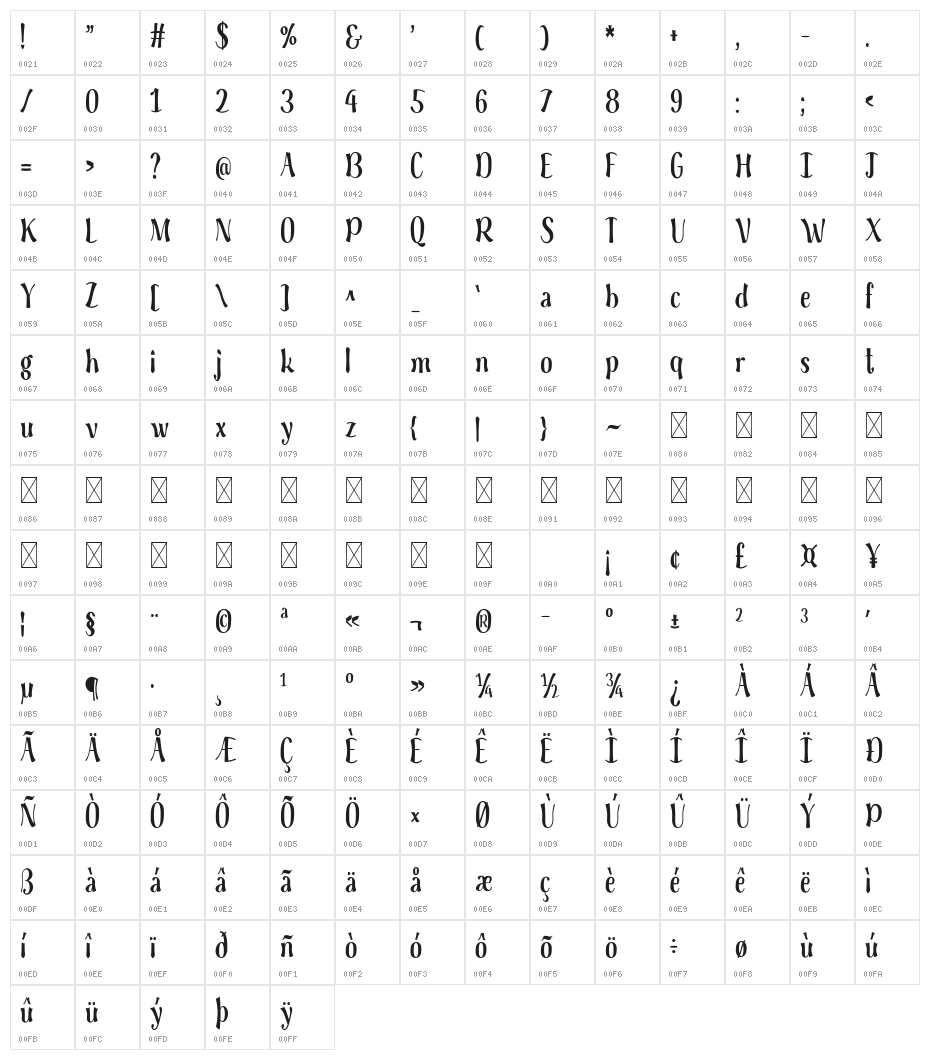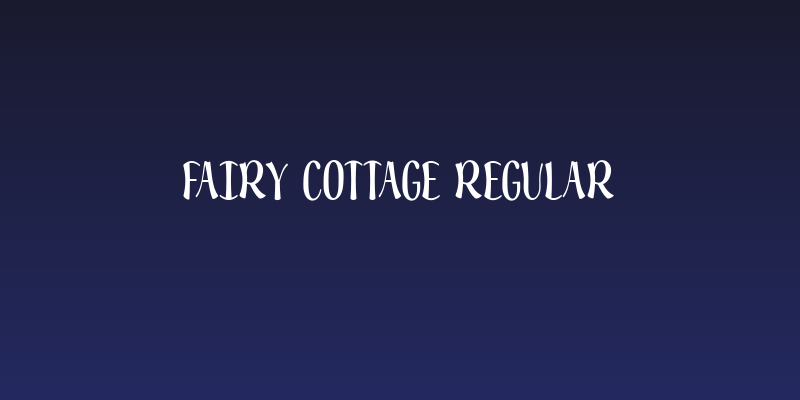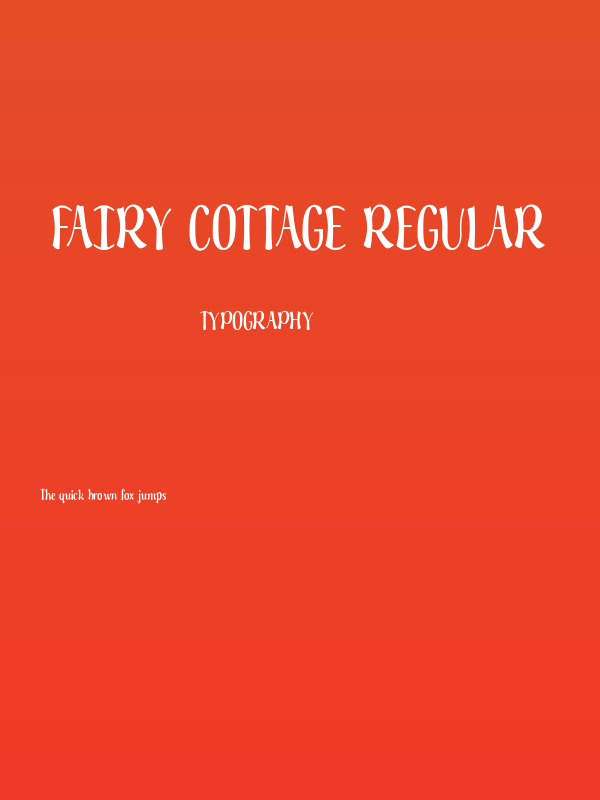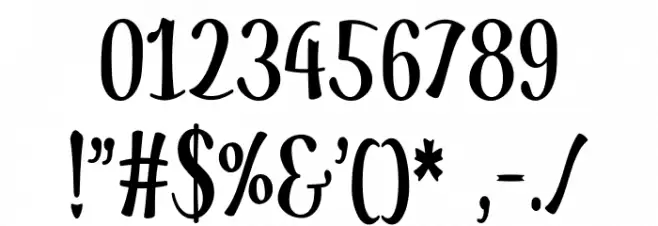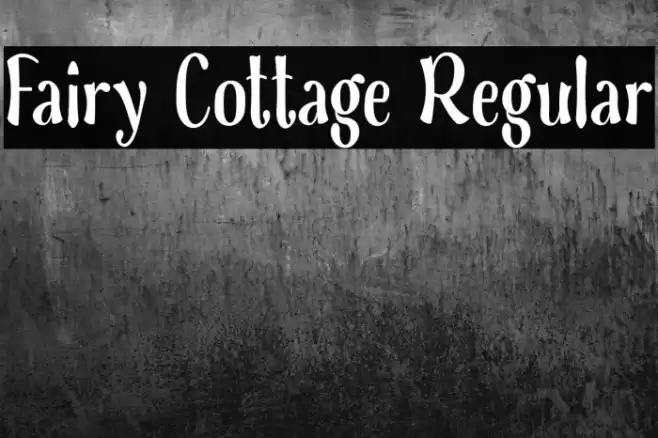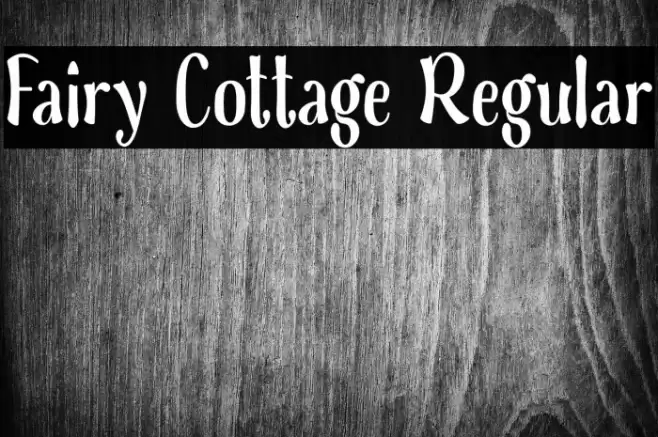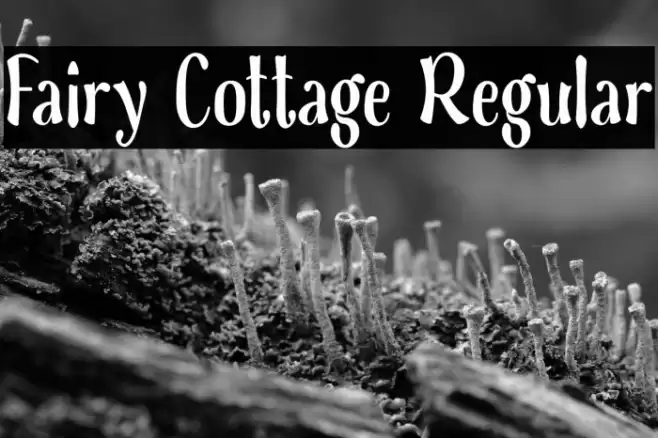
Fairy Cottage Regular Font
Fairy Cottage Regular Description
This font features a whimsical and playful design, characterized by its flowing curves and slightly irregular shapes. The uppercase letters have a distinctive flair, with exaggerated serifs and varying stroke widths that add a sense of movement and fantasy. The lowercase letters maintain a consistent style, with rounded edges and a hand-drawn appearance that enhances its charming and fairy-tale-like quality. The numerals and special characters are crafted with the same attention to detail, ensuring a cohesive look across all elements. This font's unique style makes it ideal for projects that require a touch of magic and creativity.
| Overall Style | Whimsical, Playful, Fantasy |
| Use Case | Headlines, Logos, Invitations |
| Proposed Projects | Perfect for children's books, fantasy-themed invitations, whimsical branding, and creative posters. |